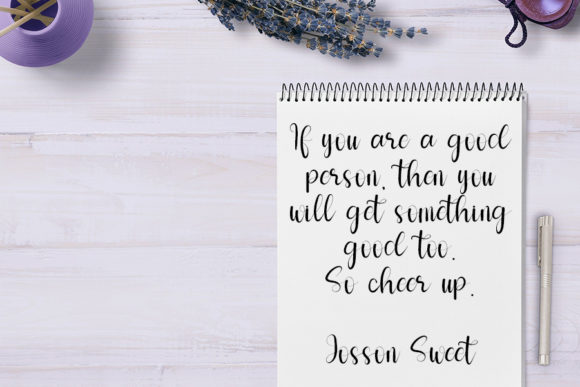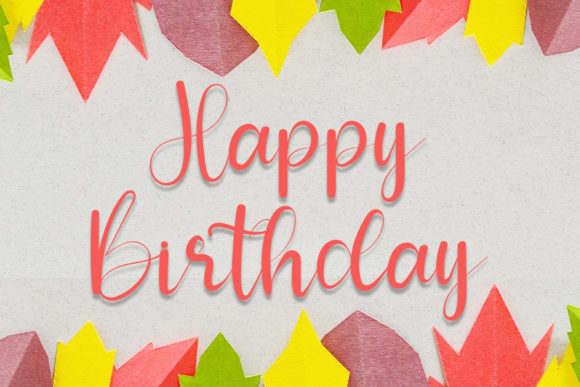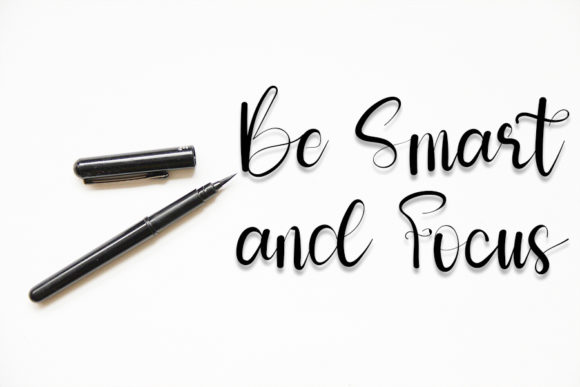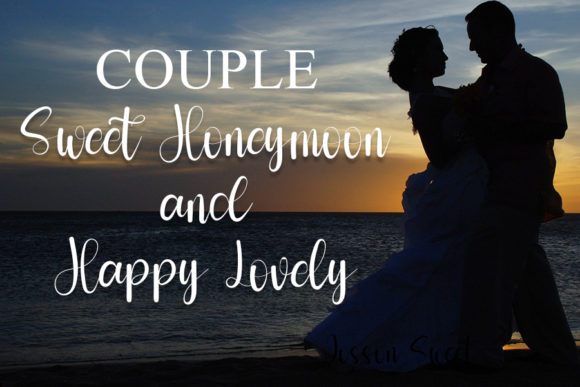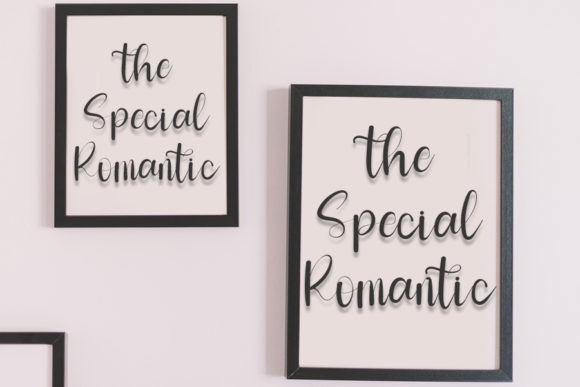
Introduction to Beauty of Mommy Font
Beauty Of Mommy is a stylish and delicate calligraphy font.
It has a clean, thin and smooth vibe and it will be a hit for any design that you want to add it to Fall in love with its incredibly versatile style and use it to create spectacular designs.